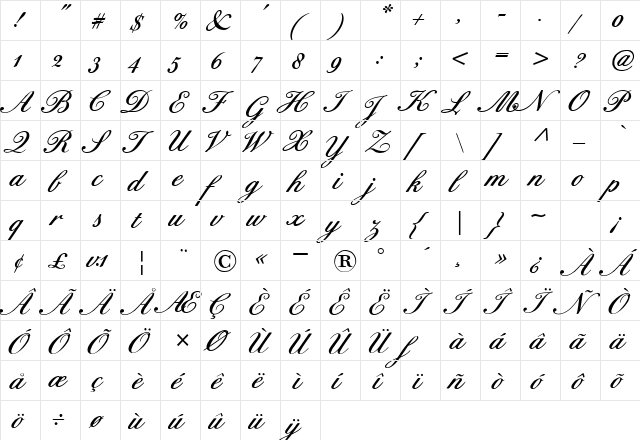
BixAntiqueScriptHmkBold Regular
Design Context for BixAntiqueScriptHmkBold Typeface
BixAntiqueScriptHmkBold has the warm character of retro typography — evoking diners, record sleeves, and the golden age of print advertising. The heavy weight commands attention and anchors typographic hierarchies.
Perfect for vintage-inspired branding, retro packaging, nostalgia campaigns, and period-accurate editorial design.
Font Pairing: Combine BixAntiqueScriptHmkBold with a simple slab or neutral sans — period-accurate companions reinforce the vintage feel without competing for attention.
Pro Tip: Use BixAntiqueScriptHmkBold for headlines and pull quotes rather than body copy — its personality is best appreciated in short, focused bursts.